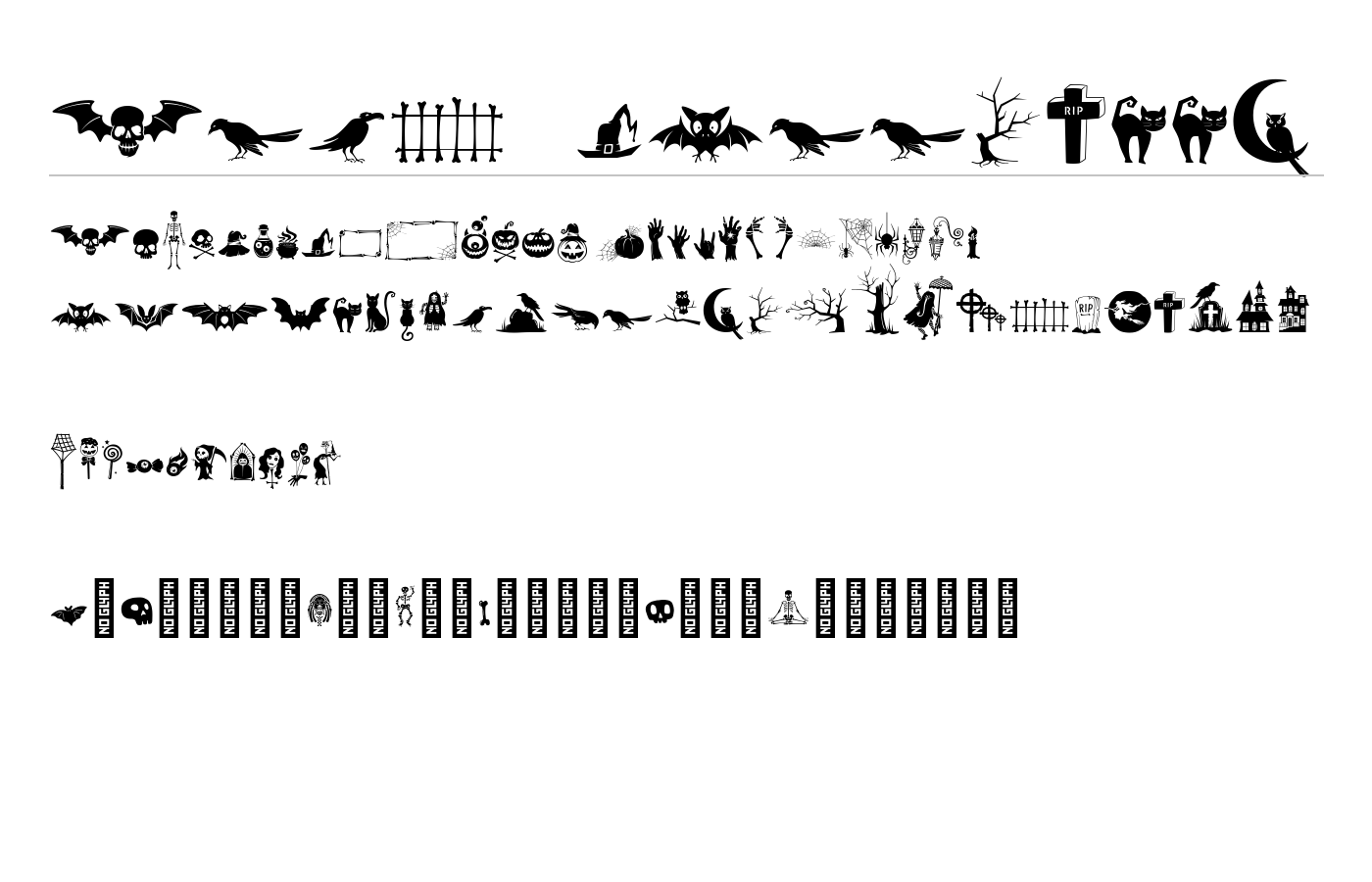
Alit Halloween Font is a decorative dingbat typeface featuring detailed, spooky icons like bats, skulls, pumpkins, and haunted houses. This playful and thematic font captures a fun yet eerie Halloween spirit, making it perfect for festive invitations, party posters, and holiday decorations. Its unique symbol set adds a creative touch to seasonal designs, bringing Halloween themes to life with bold, black silhouettes.
Alit Halloween Font
About Alit Halloween Font
| Font family | Alit Halloween Font |
| Designer | Ny Indrayana |